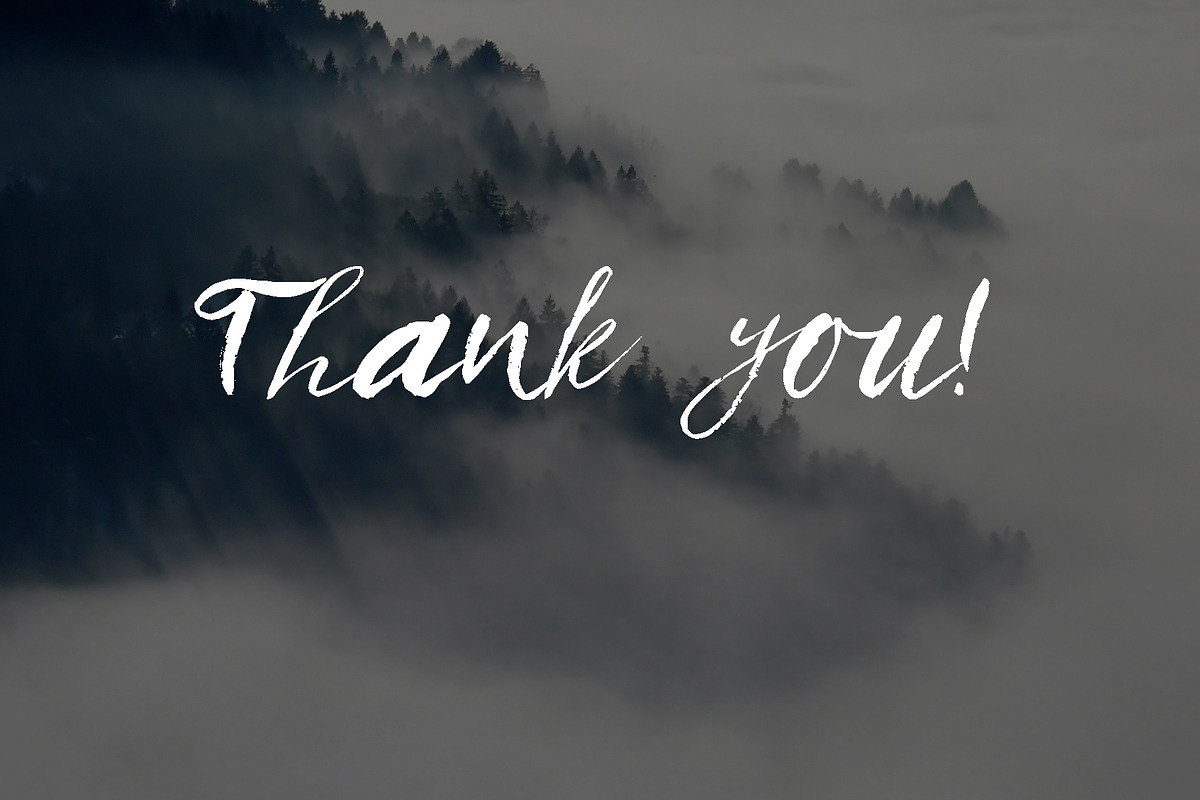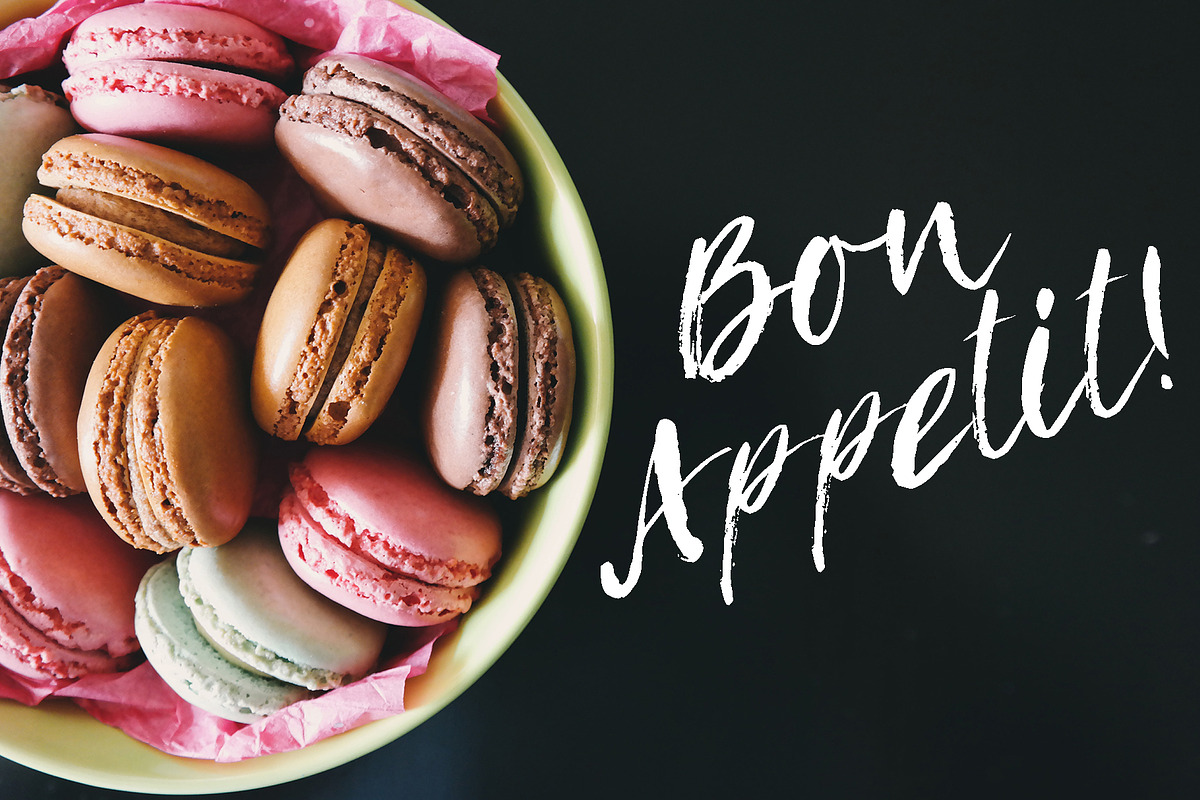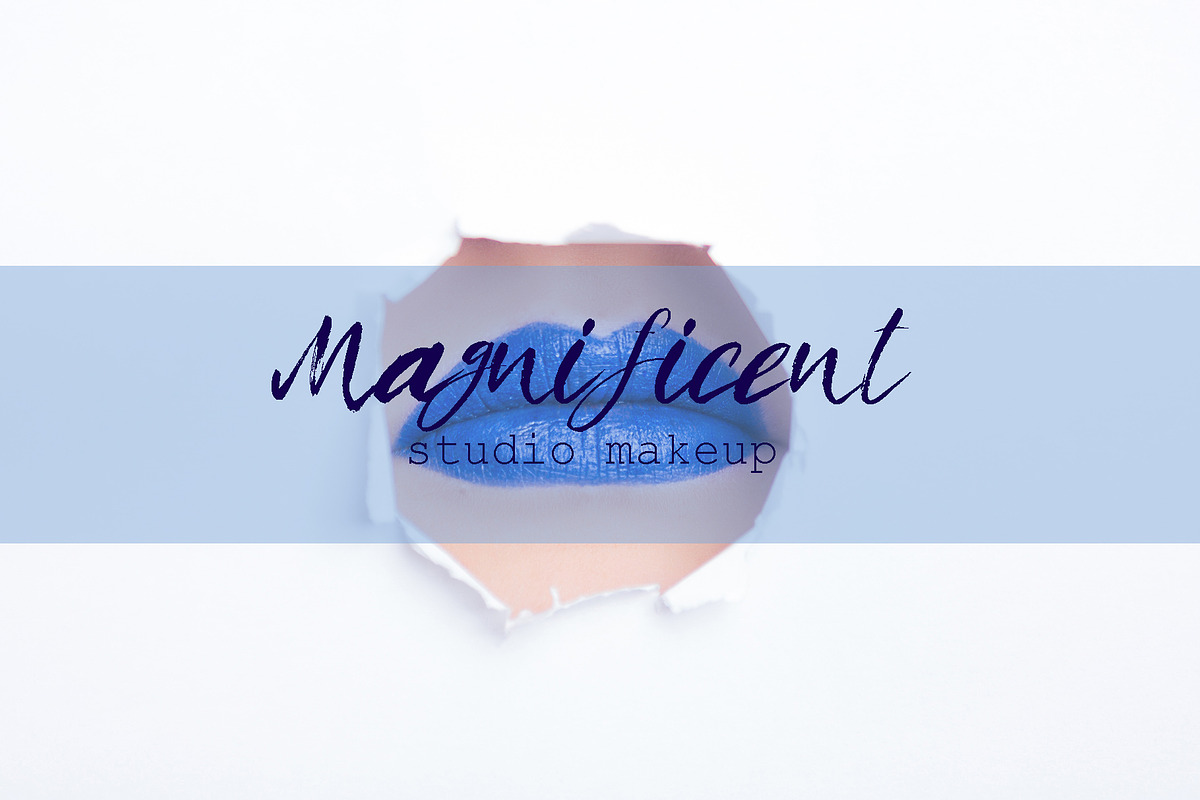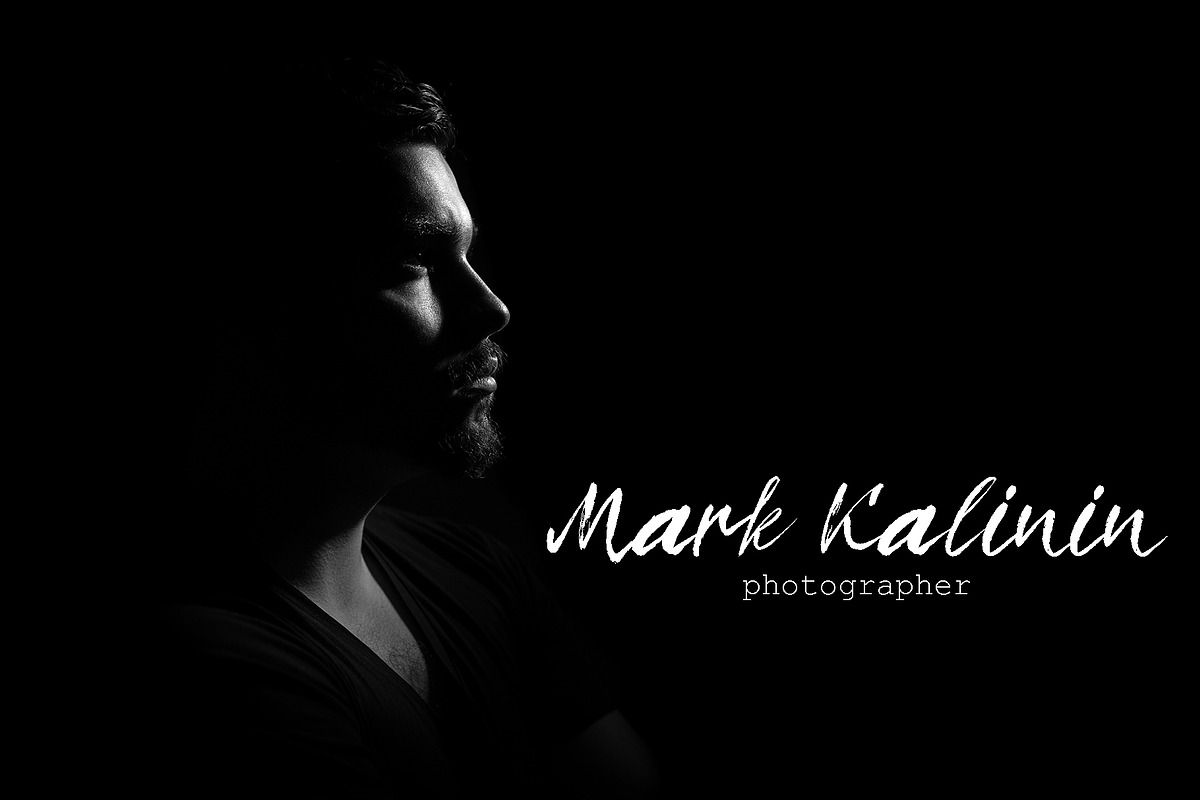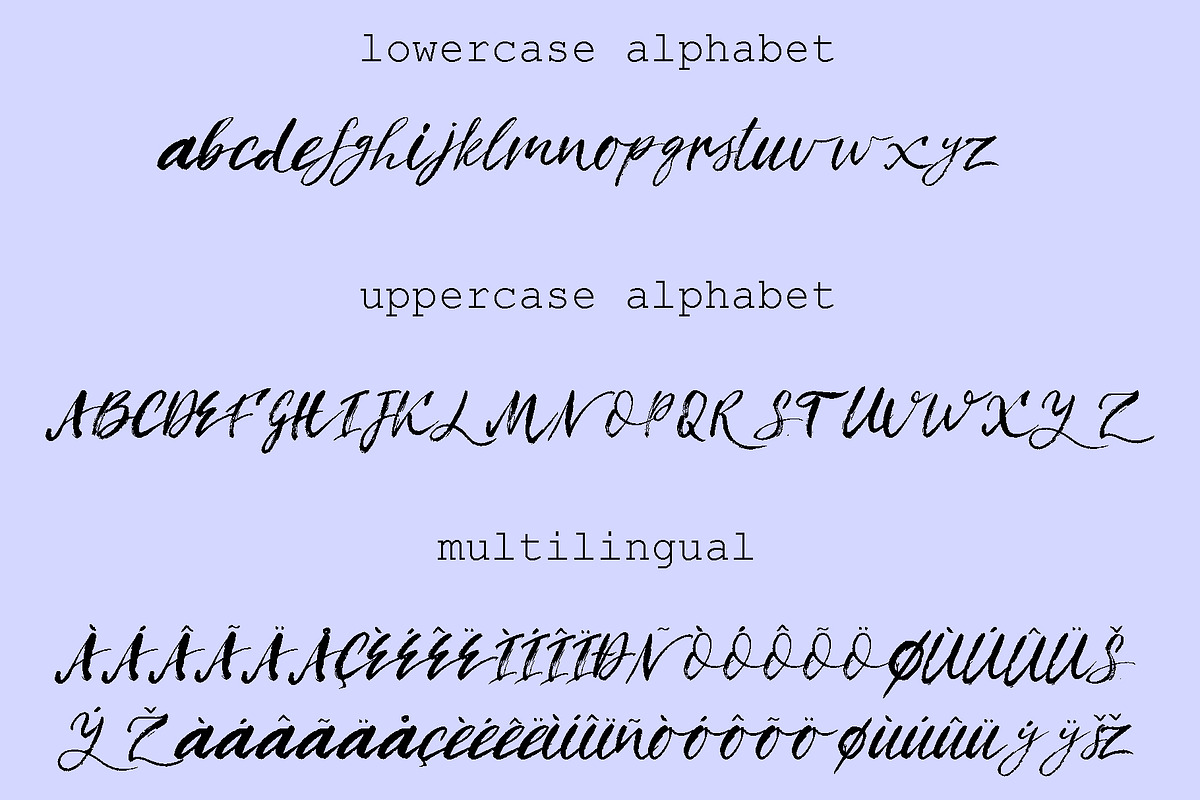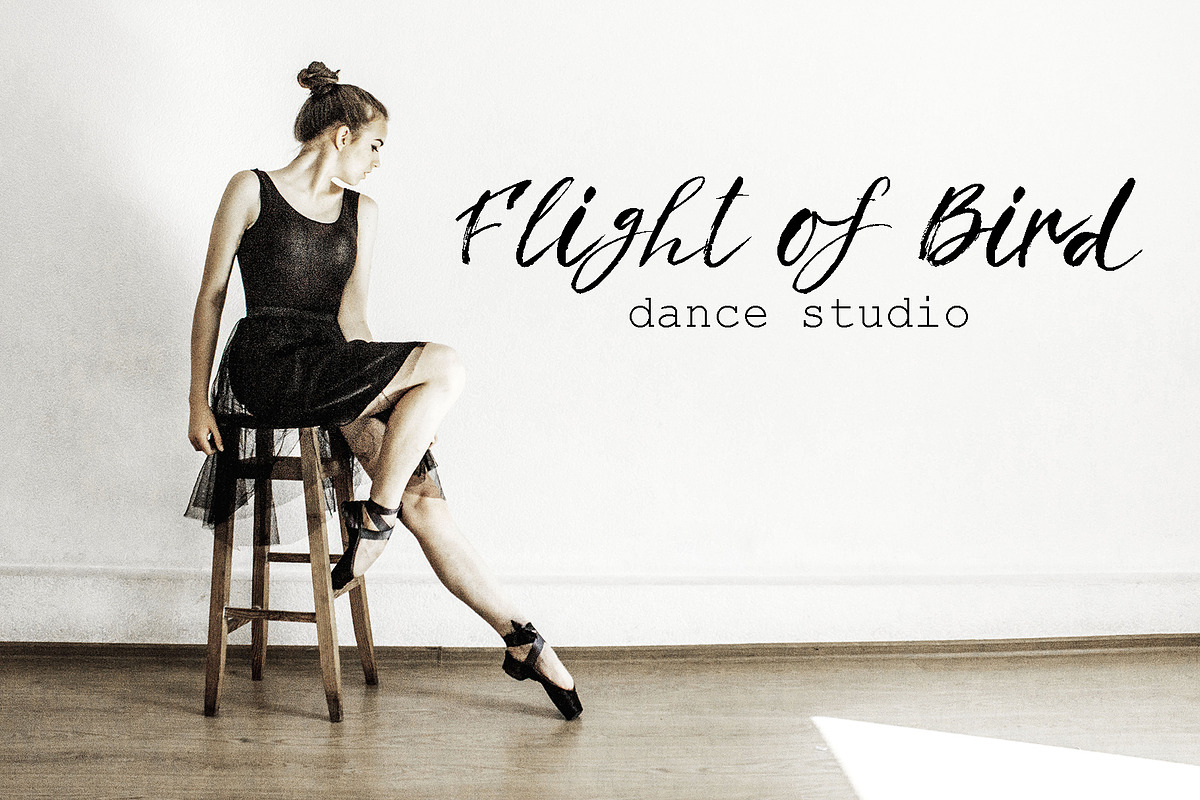
Pluvo Script | Brush Font
Introducing Pluvo Font! It is a perfect for branding, Instagram posts and quotes, as if written by hand with a brush. The font looks like a spray of rain or a blizzard. It will give energy to your text.
The font includes all letters, numerals and punctuations. Font contain the following characters: AÀÁÂÃÄÅCÇDÐEÈÉÊËIÌÍÎÏNÑOØÒÓÔÕÖUÙÜÚÛWẂŴẄẀYÝŸỲŸß in uppercase and lowercase.